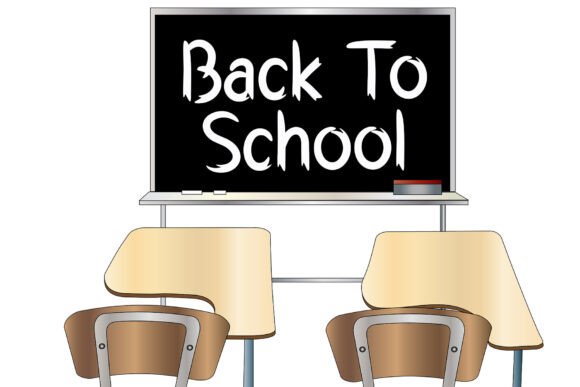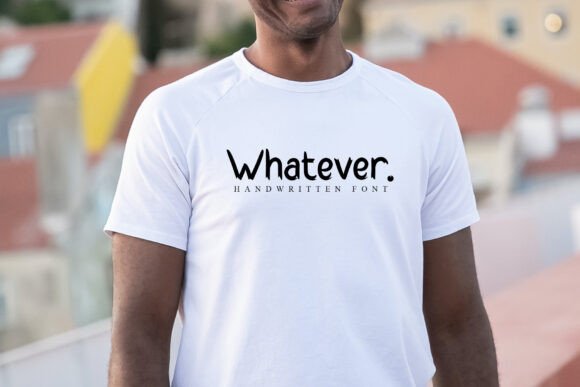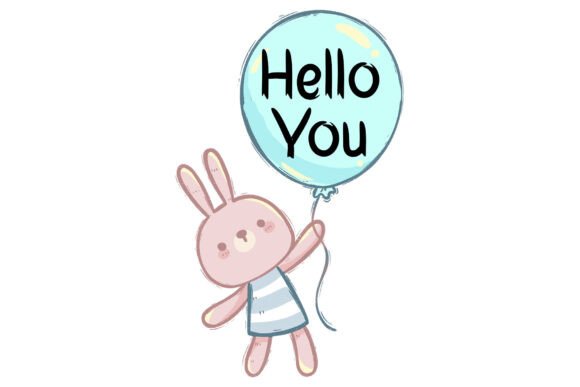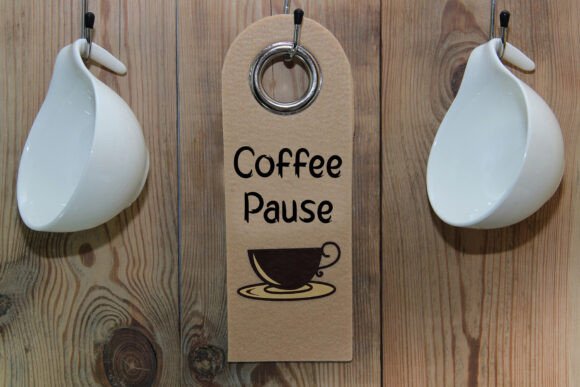
Introducing Chika Font: Elevate Your Designs with Elegance and Sophistication
In the world of design, fonts play a crucial role in conveying the tone and aesthetic of a project. Whether you’re working on a wedding invitation, a birthday card, or a school assignment, the right font can make all the difference. This is where Chika Font comes in – a unique and elegant font designed to add a touch of sophistication to your creations.
What Makes Chika Font Special?
Chika Font is crafted with a professional hand touch, giving it a distinctive and refined look. This font is perfect for designers and crafters who want to add a personal touch to their projects. With Chika Font, you can create stunning visual content that stands out from the crowd. Its versatility makes it suitable for a wide range of applications, from formal events to creative projects.
Perfect for Various Projects
Chika Font is an excellent choice for various projects, including:
- Wedding Invitation Cards: Add a touch of romance and elegance to your wedding invitations with Chika Font.
- Birthday Cards: Make your birthday cards more special with this beautiful and unique font.
- Party Invitations: Whether it’s a baby shower, graduation party, or any other celebration, Chika Font is perfect for creating eye-catching invitations.
- School Assignments: Give your school projects a professional look with Chika Font, making them stand out from the rest.
Why Choose Chika Font?
Here are some reasons why Chika Font should be your go-to font for your design projects:
- Unique and Elegant: Chika Font boasts a distinctive and sophisticated style that will elevate your designs.
- Professional Touch: The font’s professional hand touch gives it a high-end look, perfect for formal and creative projects.
- Versatile: Chika Font can be used for a wide range of projects, from formal events to school assignments.
Tips for Using Chika Font Effectively
To get the most out of Chika Font, here are some tips:
- Pair it with Other Fonts: Experiment with pairing Chika Font with other fonts to create a unique and visually appealing design.
- Use it for Headings and Titles: Chika Font is perfect for headings and titles, adding a touch of elegance to your designs.
- Adjust Font Sizes: Play around with different font sizes to create a visually appealing hierarchy in your designs.